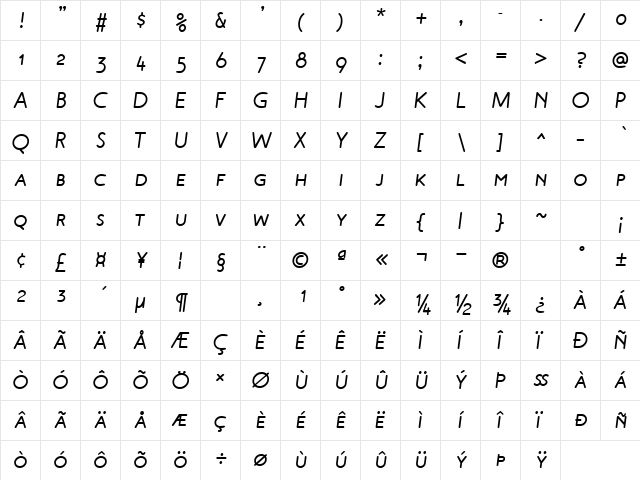
Malvern SC Bold Italic
Design Context for Malvern SC Typeface
Malvern SC is a composed and adaptable typeface that performs quietly and consistently across a wide range of design contexts. The slanted form adds forward momentum and visual energy. Its bold stroke weight gives it real presence on the page.